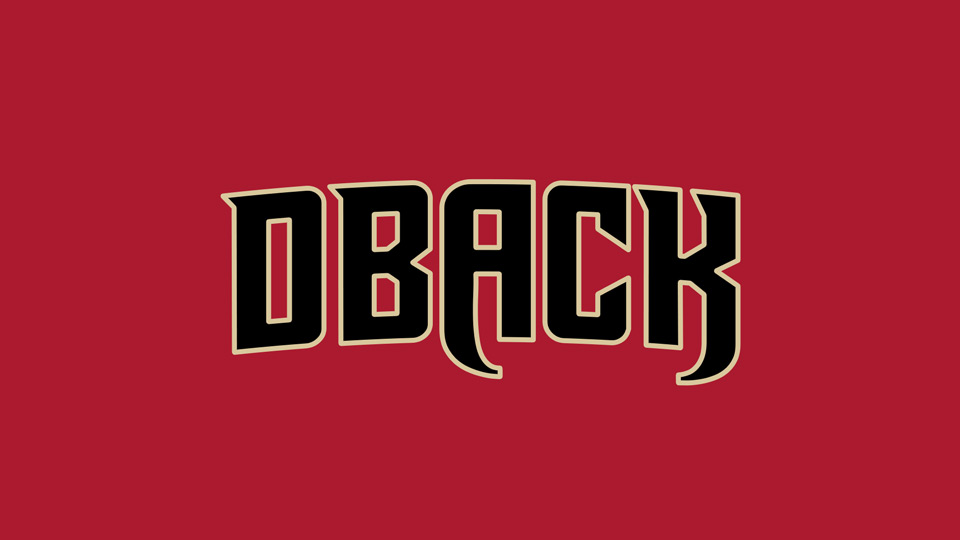
Download Dback font, a display typeface inspired by the Arizona Diamondbacks uniform. This distinctive typeface features a bold and dynamic design that captures the essence of athletic passion.
Designer: Rob Hindley